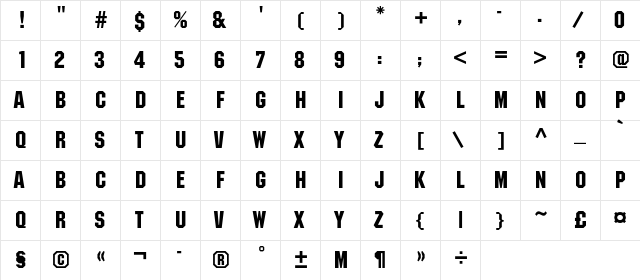
MachineC Regular
Design Context for MachineC Typeface
MachineC offers clean, dependable letterforms without strong stylistic allegiance, making it a practical choice for designers who need flexibility.